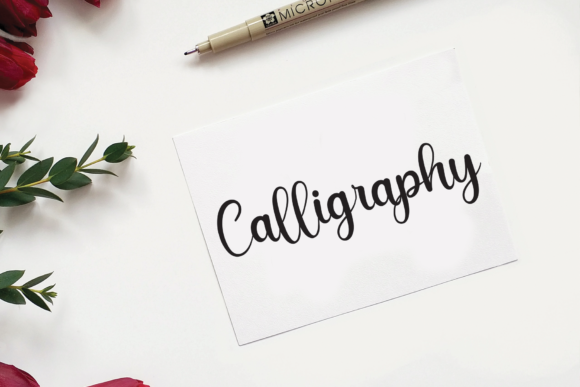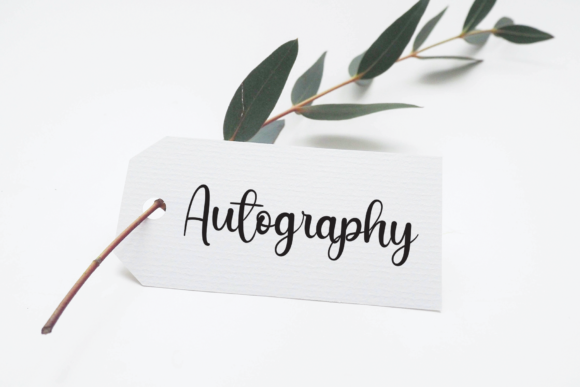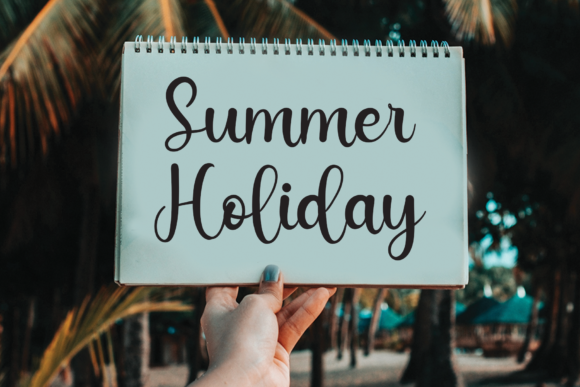
Introduction to Millenial Font
Do you remember the moment when you first stumbled upon the perfect font for your creative project? For many designers, it’s the spark that ignites the entire design process. For me, it was the discovery of the Millenial Font, a sweet, romantic, and beautiful script font that instantly stole my heart. With its beautiful curves in each letter, it’s no wonder why this font has become a go-to design resource for many creatives.
As a designer, you know how crucial it is to have high-quality design resources at your fingertips. That’s exactly what the Millenial Font offers – a free download that’s packed with unique glyphs and sweeps, all easily accessible thanks to its PUA coding. Whether you’re working on a creative project that requires a touch of whimsy or a romantic vibe, this font is sure to elevate your design to the next level.
Key Features of Millenial Font
- Unique, modern design with a mix of vintage and futuristic elements, perfect for creative projects.
- High-quality font with a transparent background, ideal for use on images or videos with complex backgrounds.
- Comes in 6 different styles, each with its own unique characteristics, allowing for a wide range of creative applications.
- Perfect for designers and artists looking for a free download to enhance their designs, with a high-resolution design (300 DPI) for crisp and clear text.
- Designed to be highly legible, even at small font sizes, making it ideal for use in a variety of creative projects, from posters to social media graphics.
Honest Review: Millenial Font
As a designer, I’m always on the lookout for high-quality design resources to elevate my creative projects. Recently, I stumbled upon the Millenial Font, and I must say it’s been a game-changer. The free download was a major plus, and the transparent background made it easy to integrate into my designs.
- ✨ Sleek and modern design aesthetic that’s perfect for contemporary branding
- ✨ High-quality typography that’s crisp and clear
- ✨ Versatile font that’s suitable for a wide range of creative projects
- ⚠️ Limited character set, which may not be ideal for complex text-based designs
- ⚠️ May not be suitable for print materials due to its digital origins
Overall, I’m impressed with the Millenial Font. Its high-quality design and versatility make it a valuable addition to any designer’s toolkit. While it may have some limitations, I believe it’s a great resource for designers working on digital projects or looking for a modern aesthetic.
Millenial Font is commonly used in:
– Social media graphics and ads.
– Branding and marketing materials.
– Digital presentations and reports.